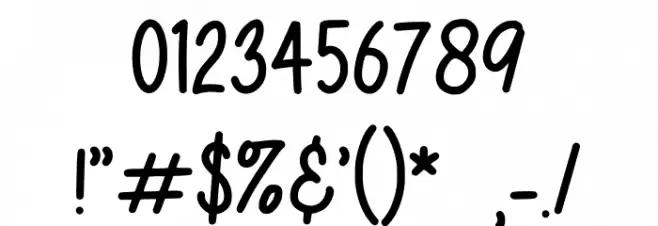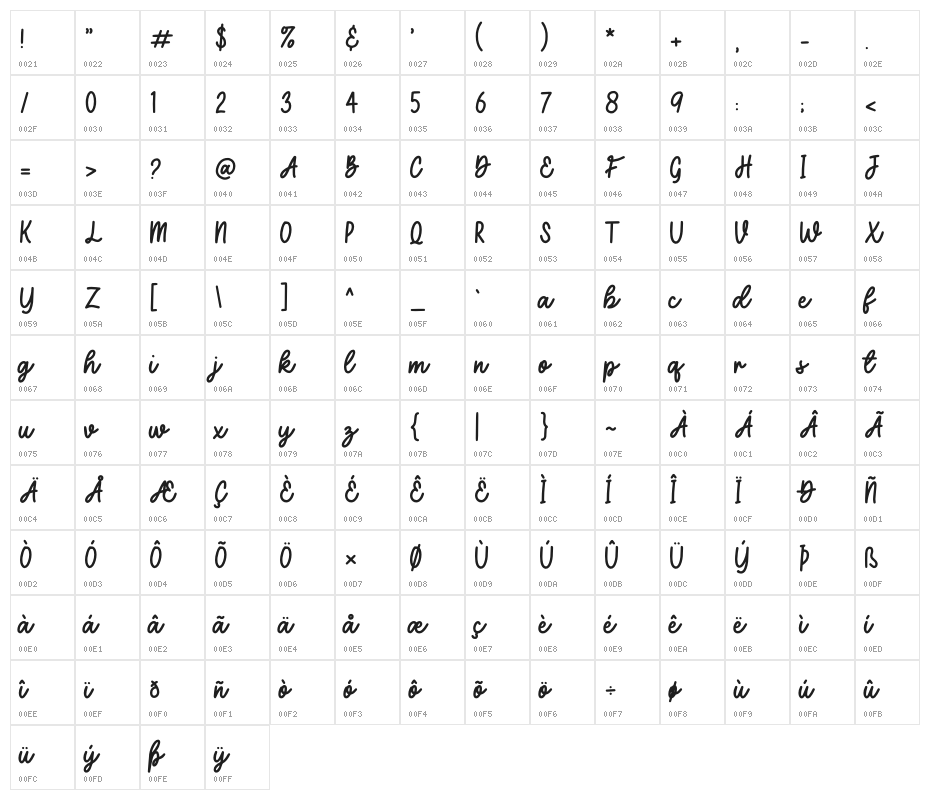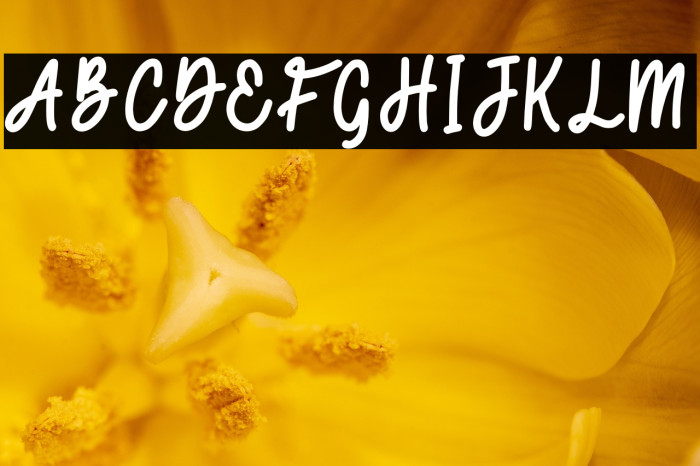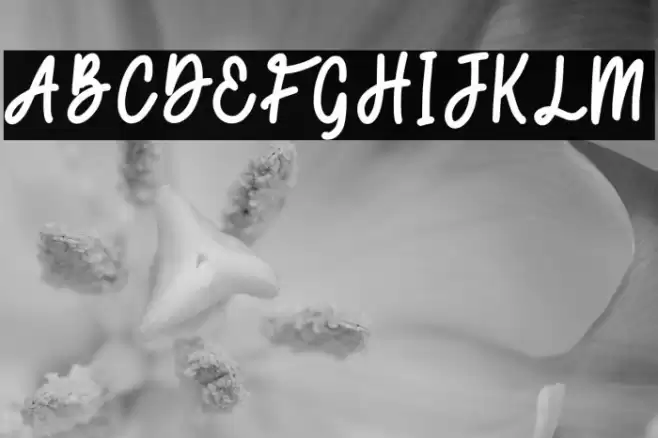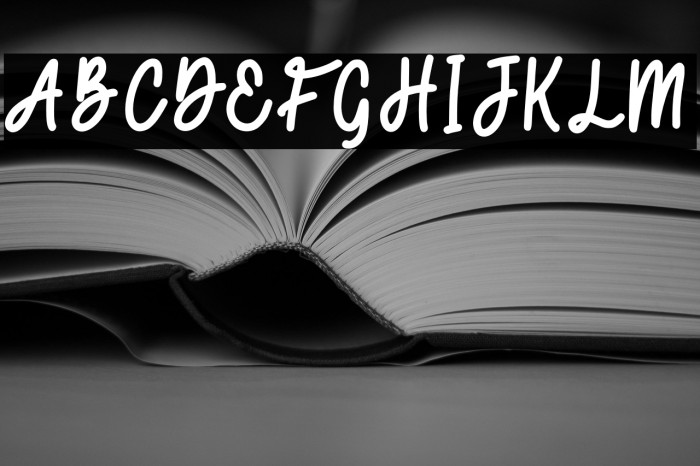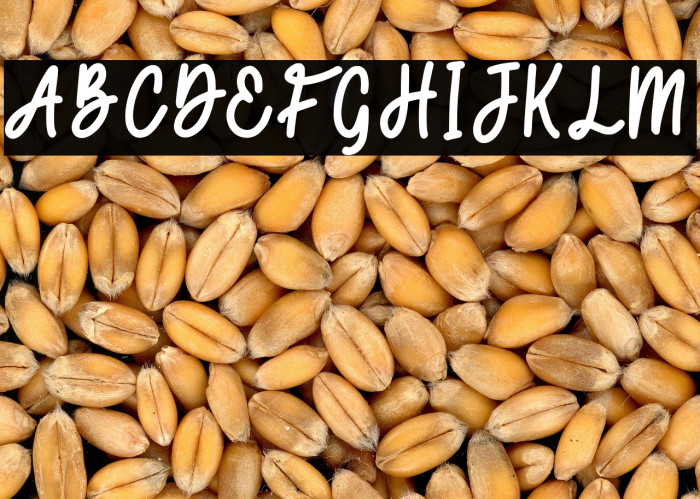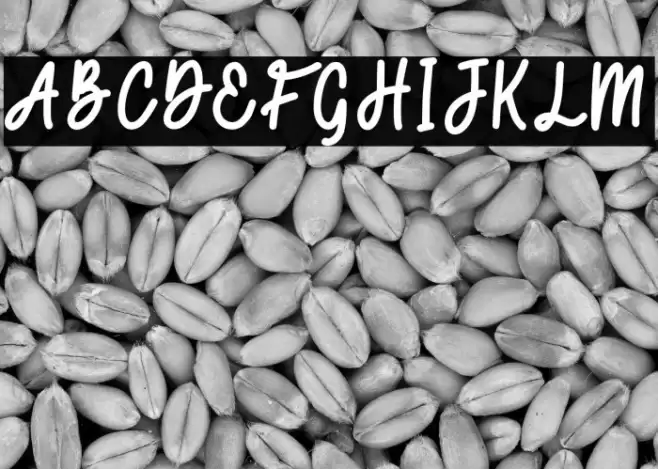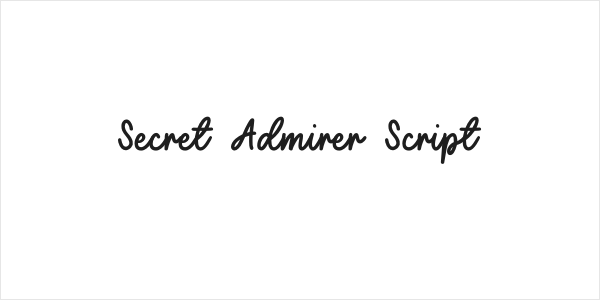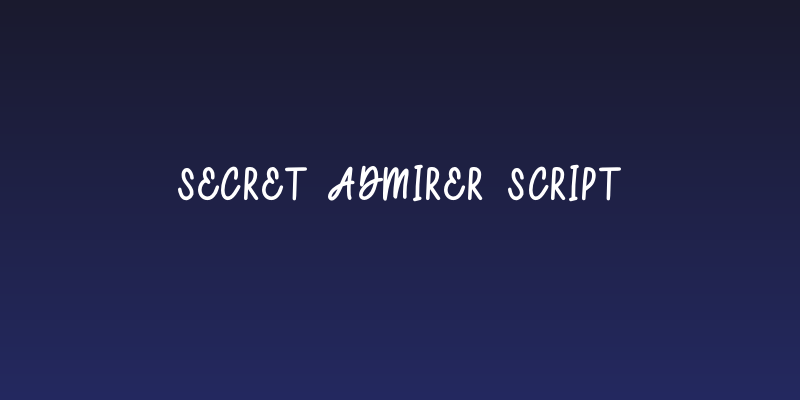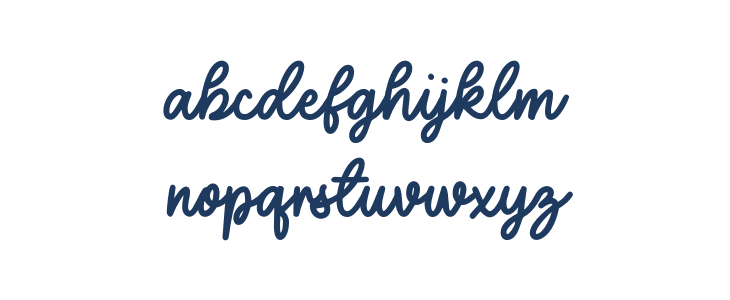
Secret Admirer Script Font
Secret Admirer Script Description
This font features a playful and casual script style, characterized by its smooth, flowing lines and slightly irregular strokes that mimic natural handwriting. The uppercase letters are bold and prominent, while the lowercase letters maintain a consistent flow, enhancing readability. The numerals and special characters are crafted with the same playful touch, making them cohesive with the overall design. The font's informal and friendly appearance makes it suitable for creative projects that require a personal touch.
| Proposed Projects | Ideal for greeting cards, invitations, personal branding, and social media graphics. |